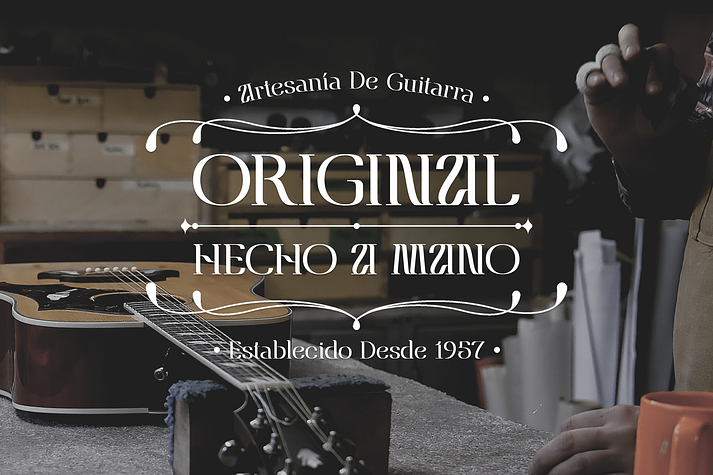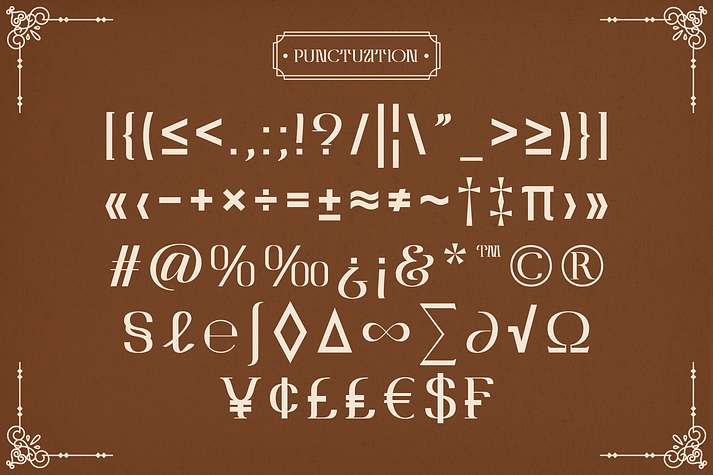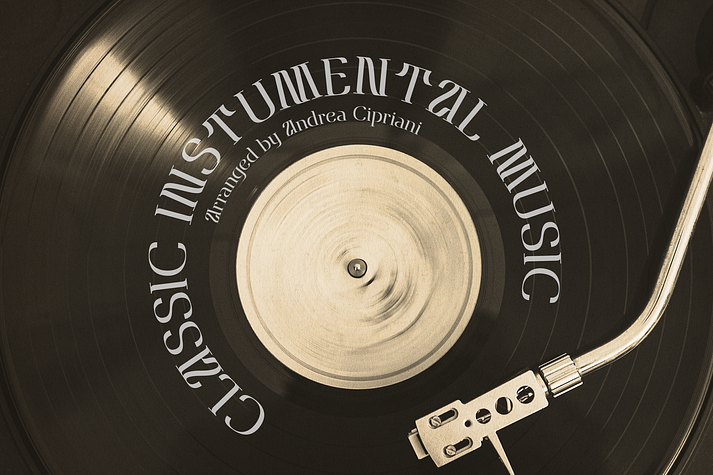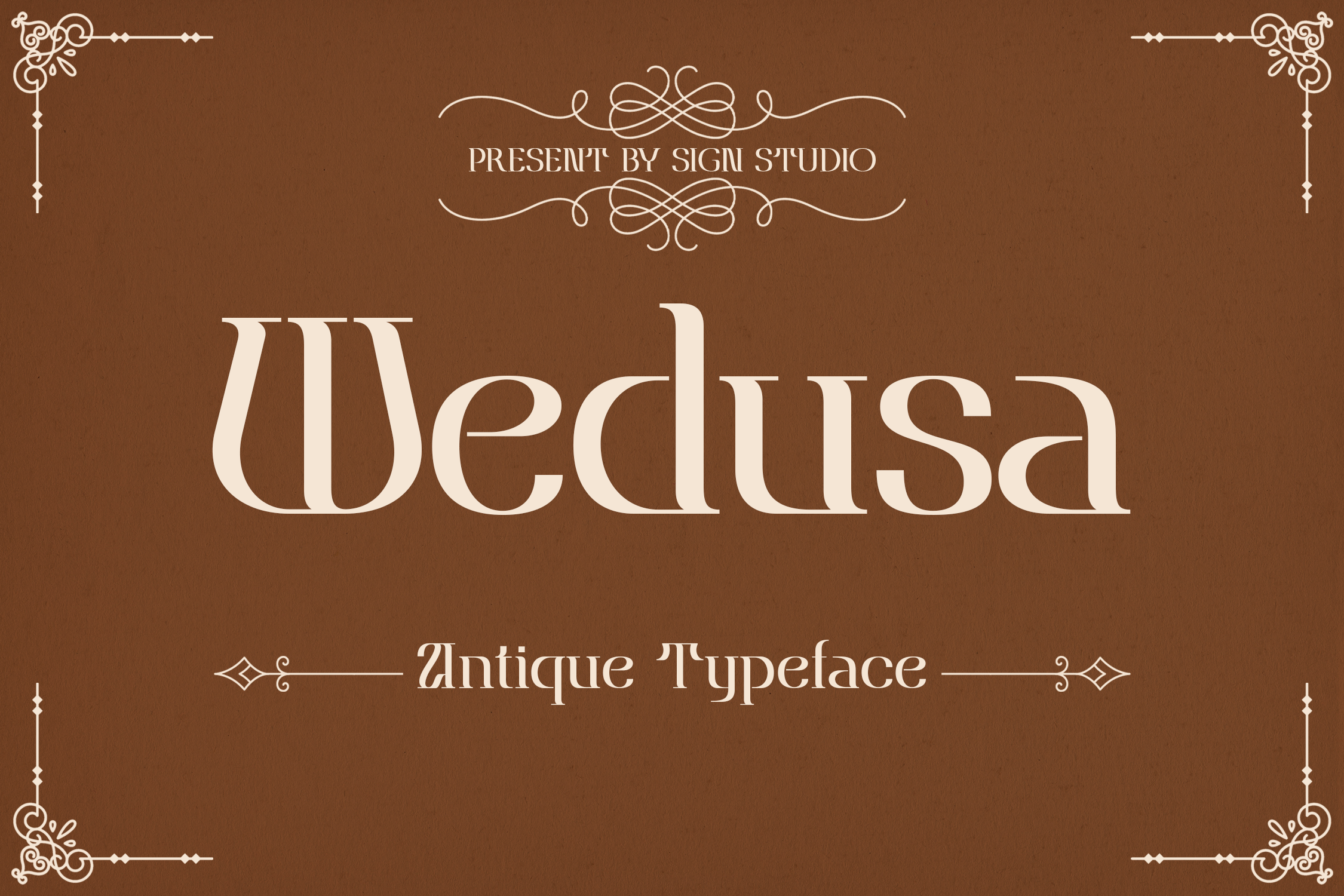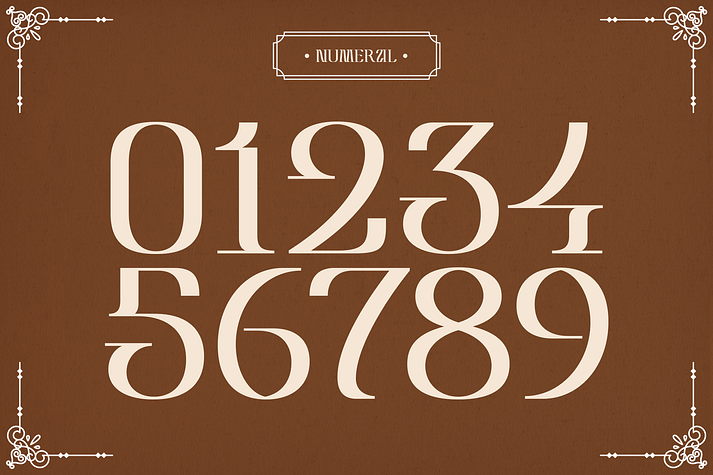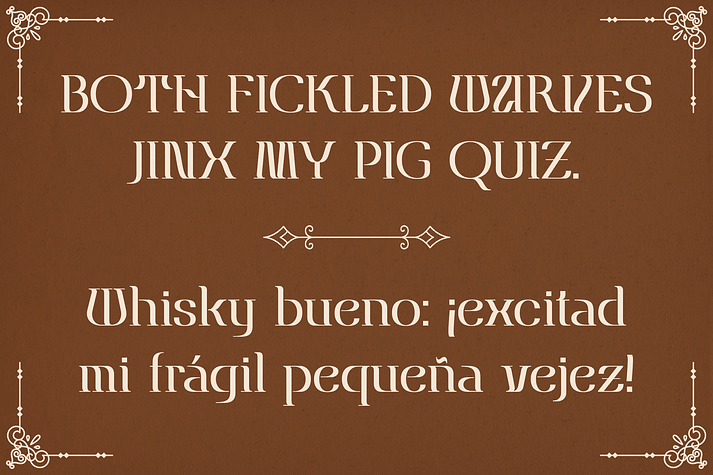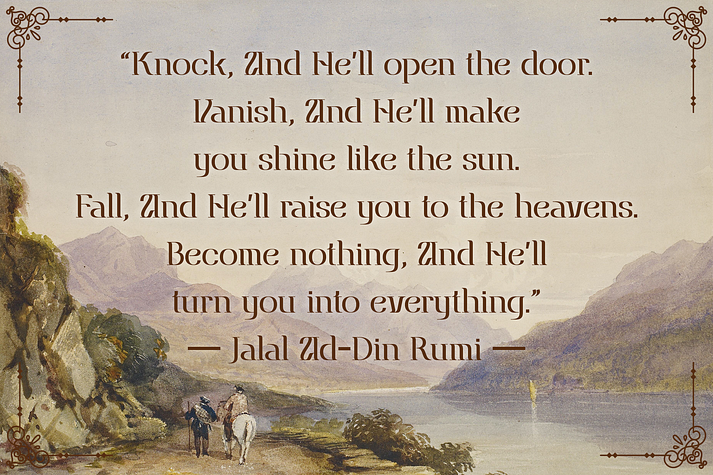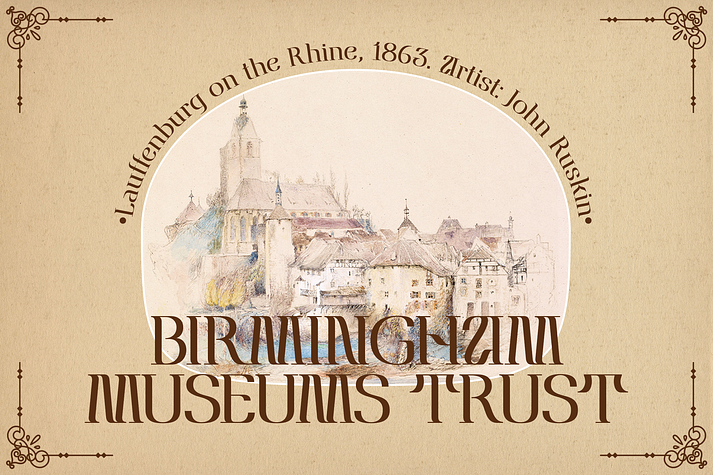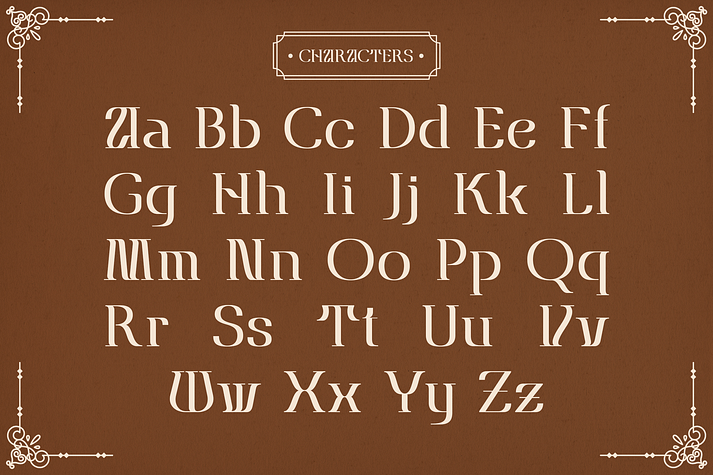
Wedusa
Wedusa is a serif font family published by Sign Studio.
Wedusa with an antique typeface offers the impression of a classic and elegant design. Inspired by classic and modern calligraphic styles. Can support about 35 languages. Will be a versatile font because writing text using this font is also easy to read.